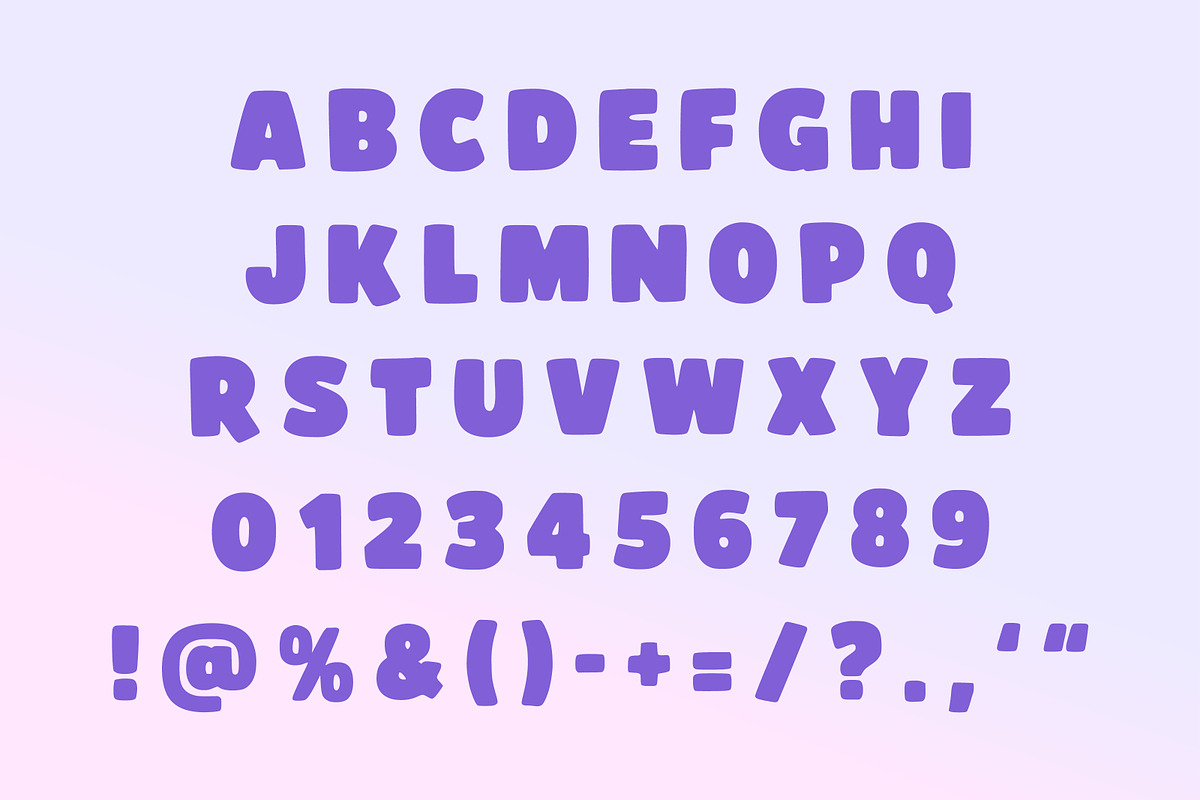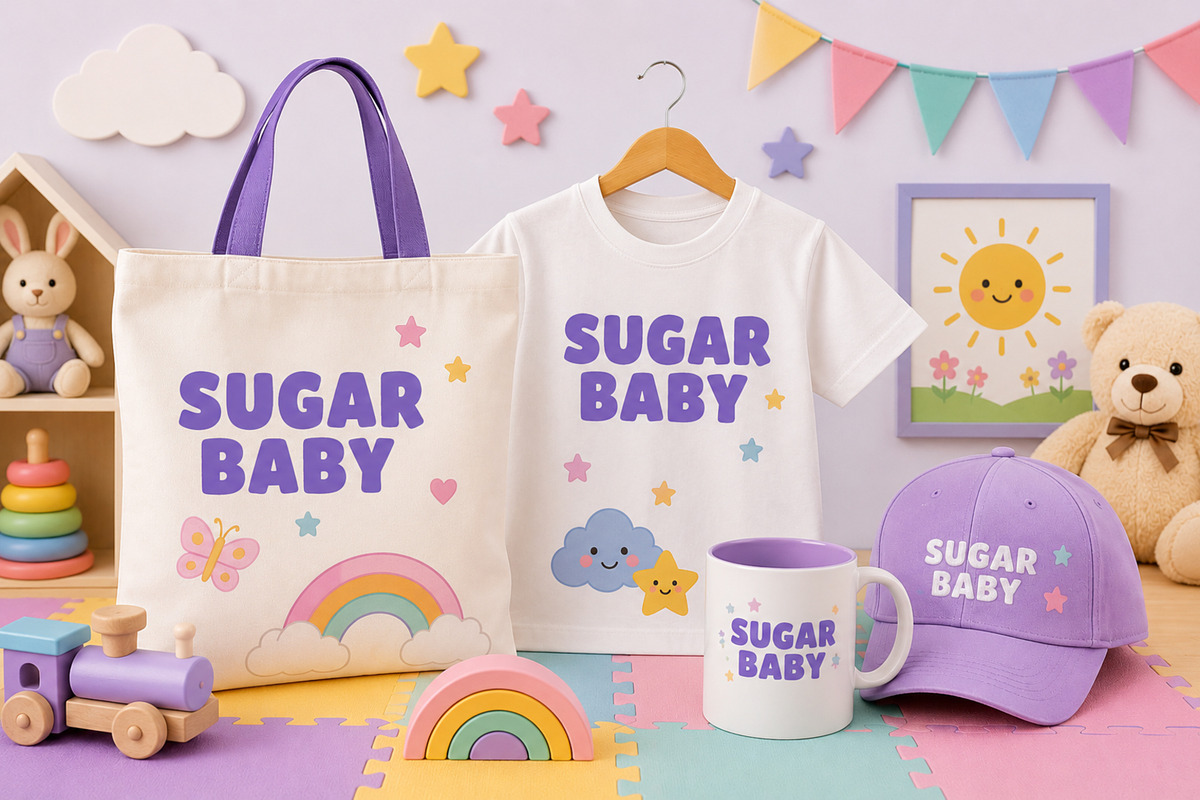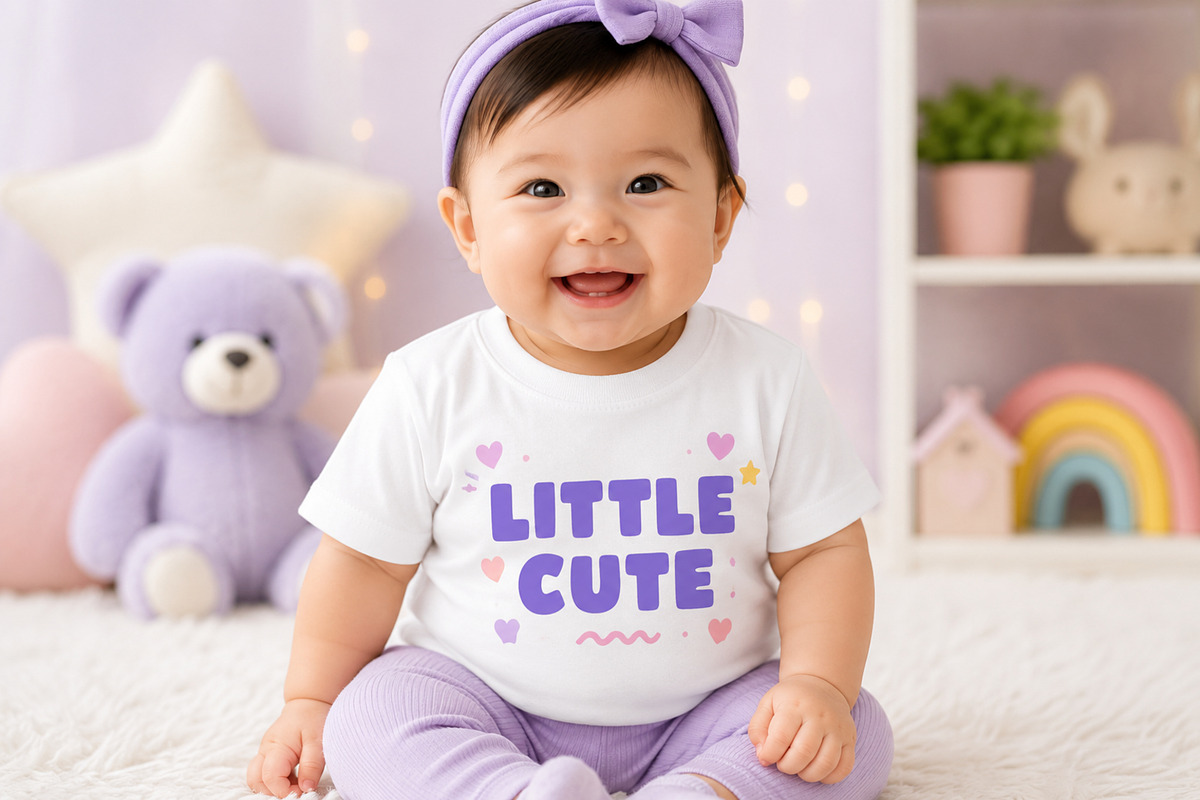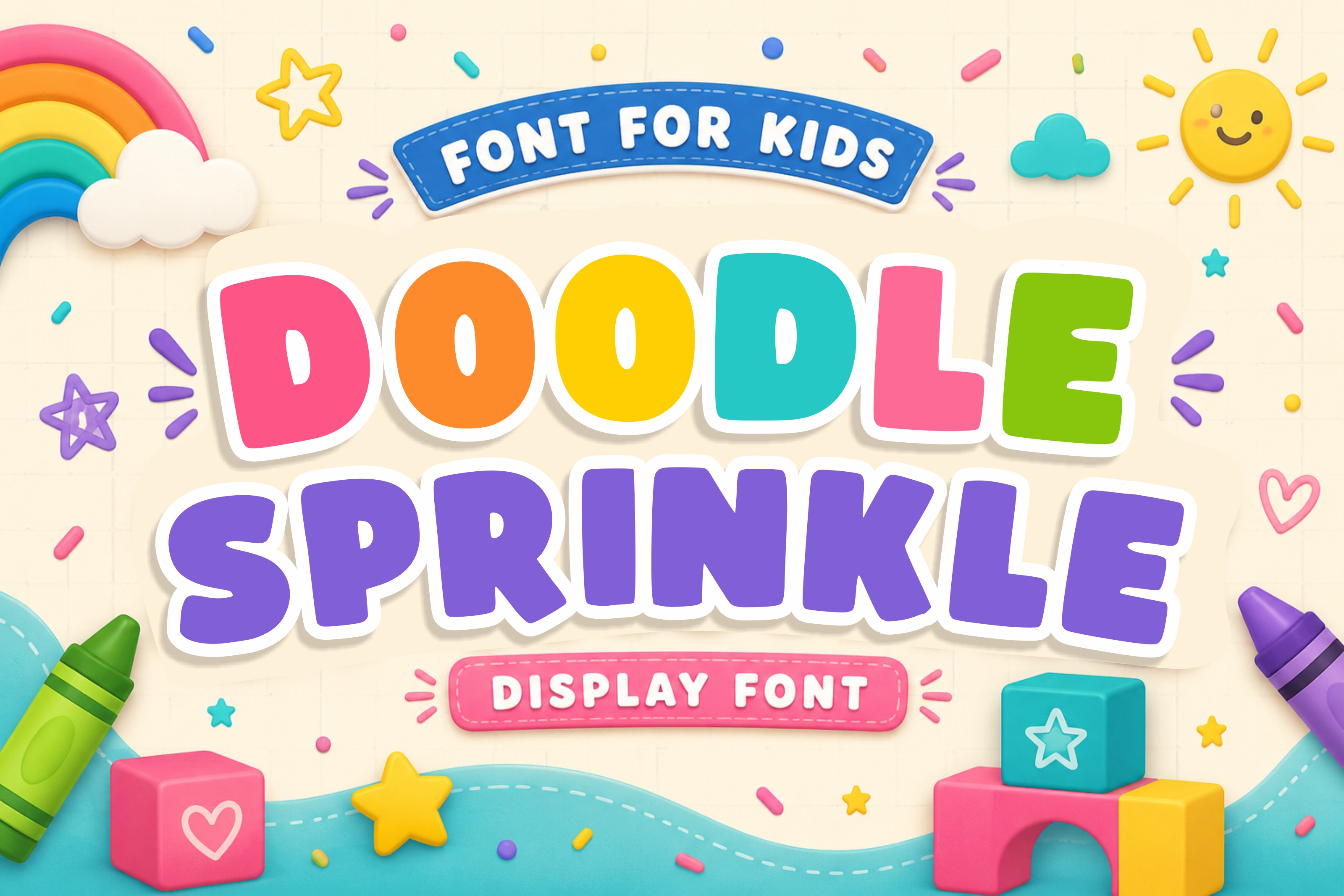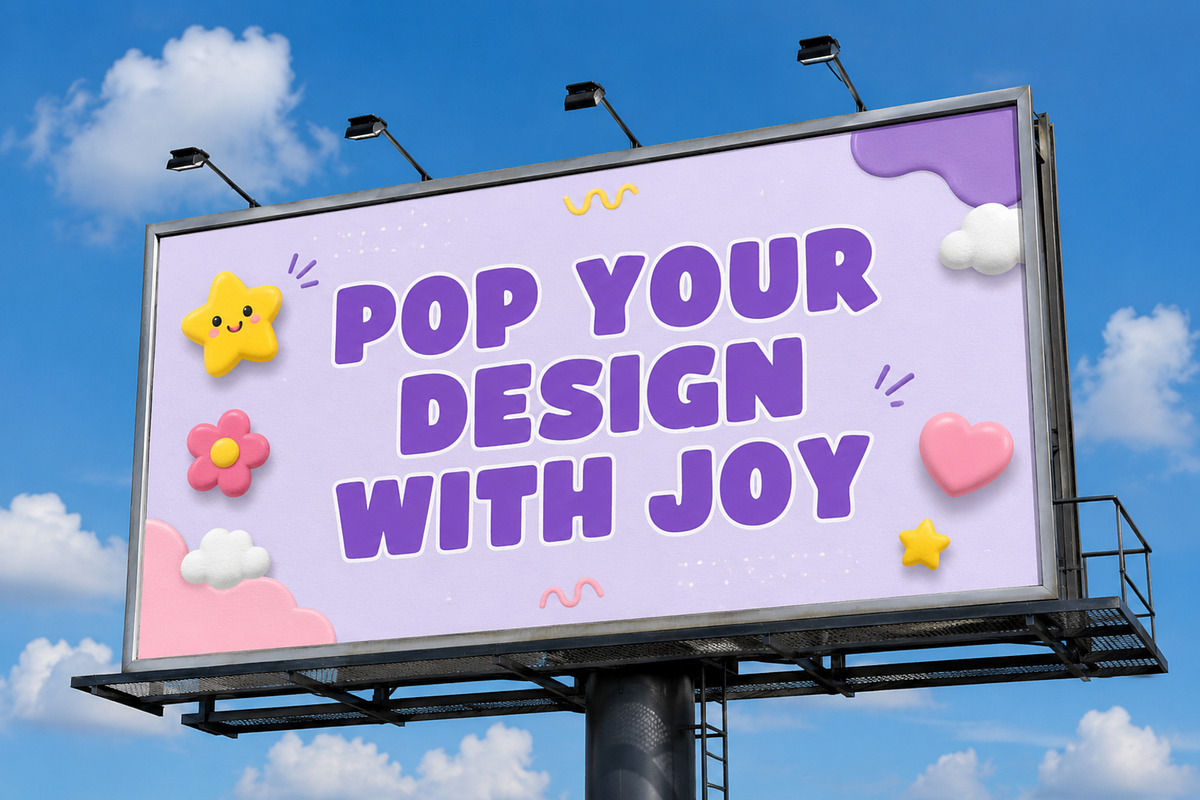
Doodle Sprinkle – Cute Kids Font
Meet Doodle Sprinkle, a cheerful display font designed to bring joy, creativity, and imagination to every project. Featuring chunky rounded characters, playful proportions, and a friendly handwritten style, this font is perfect for children's books, educational resources, classroom decorations, toy packaging, birthday invitations, and colorful branding.
Its adorable personality makes every word feel fun and approachable while maintaining excellent readability. Whether you're designing worksheets, posters, YouTube thumbnails, greeting cards, stickers, or kids' merchandise, Doodle Sprinkle adds a bright and happy touch that captures attention instantly.
Perfect for designers, teachers, crafters, and small businesses looking for a cute font that stands out in both print and digital projects.
Kids Branding
Children's Books
Preschool & Kindergarten Materials
Classroom Decorations
Educational Worksheets
Birthday Invitations
Baby Shower Designs
Toy Packaging
Stickers
Greeting Cards
Posters & Flyers
T-Shirt Designs
Cricut & Silhouette Projects
YouTube Thumbnails
Nursery Décor
Party Supplies
Craft Projects